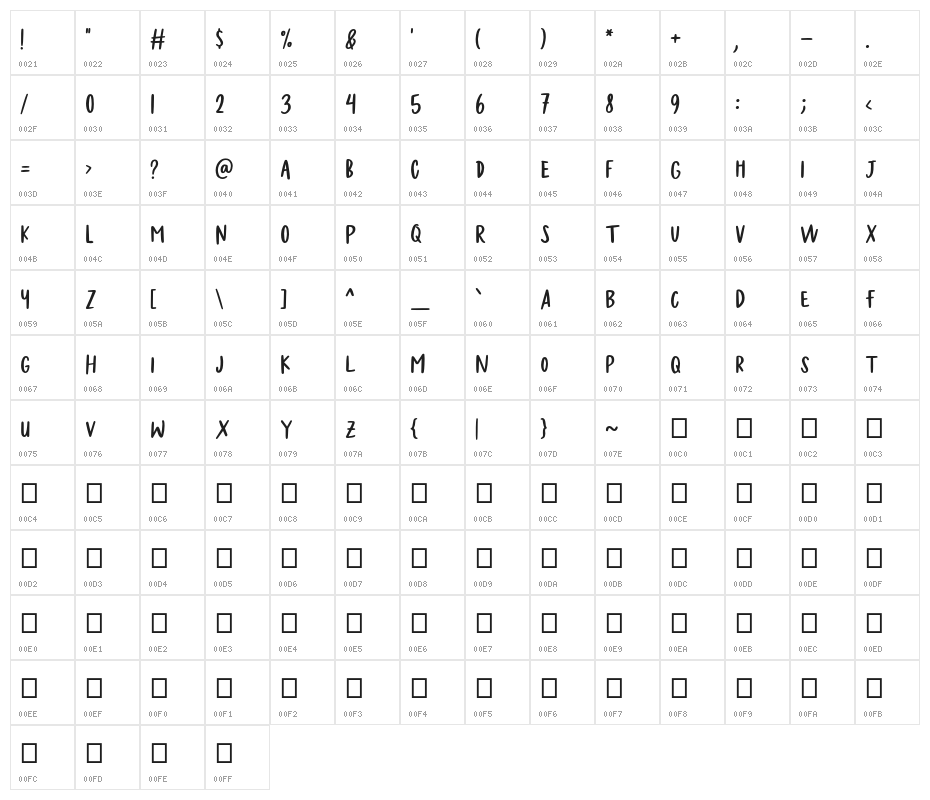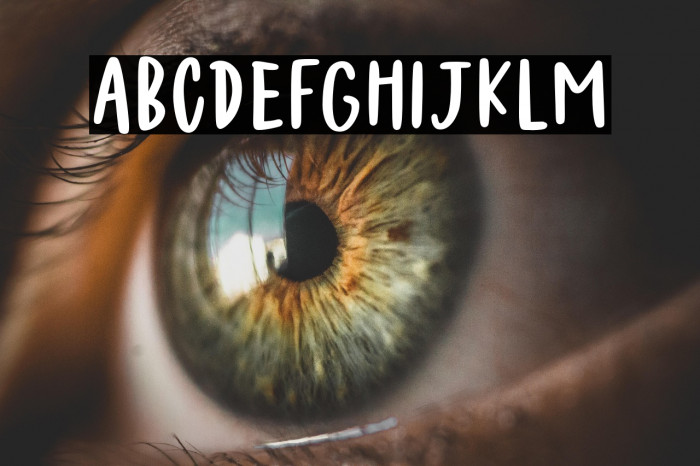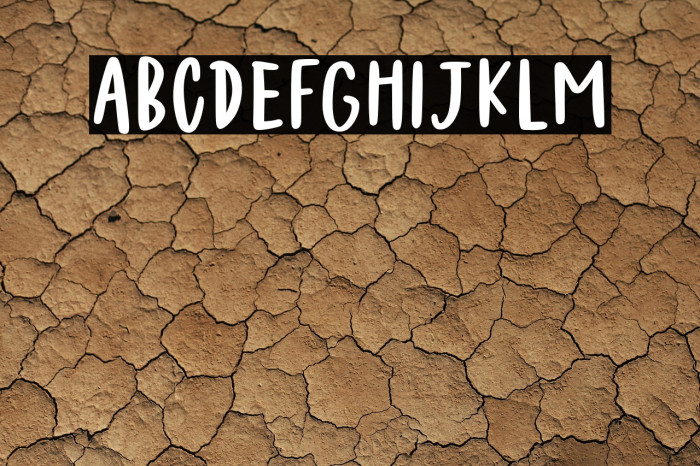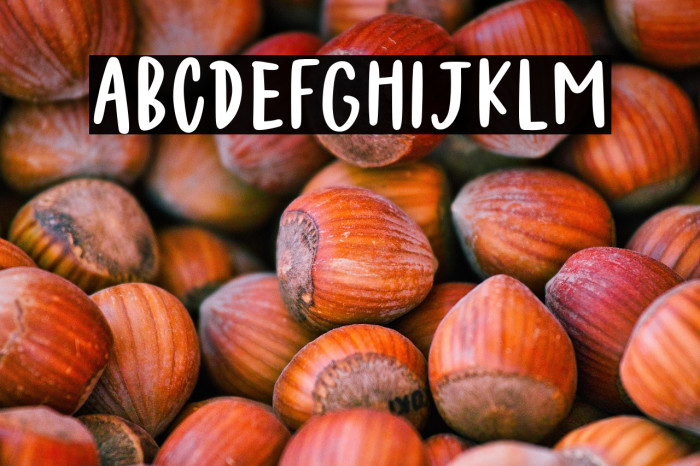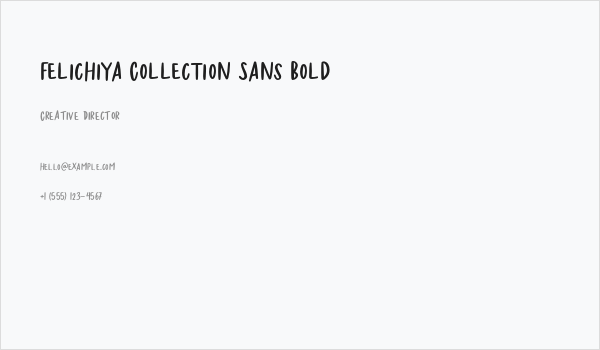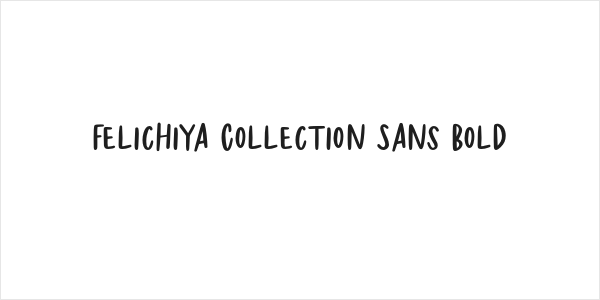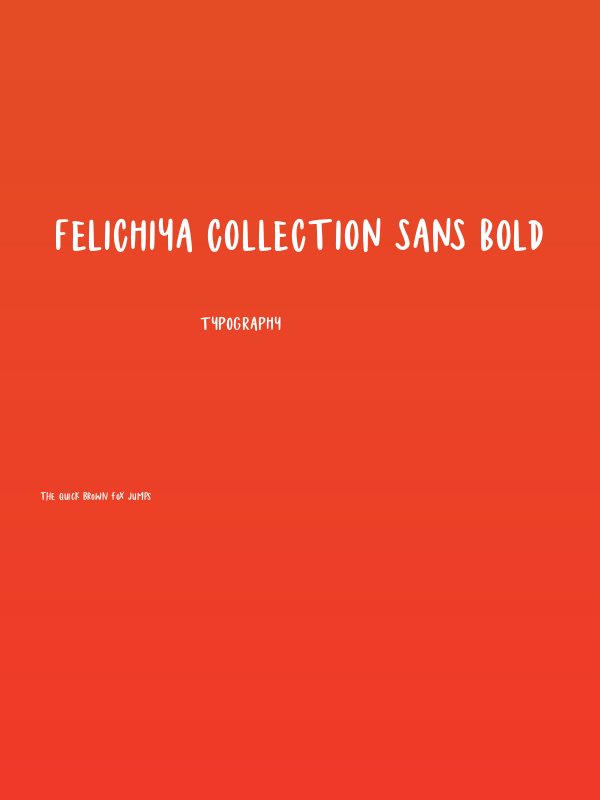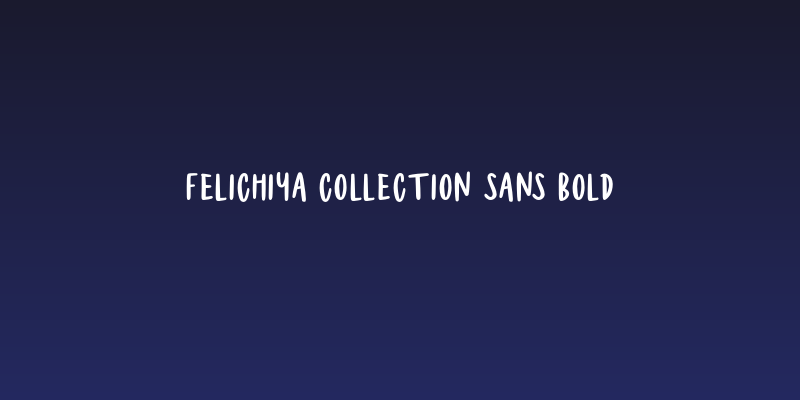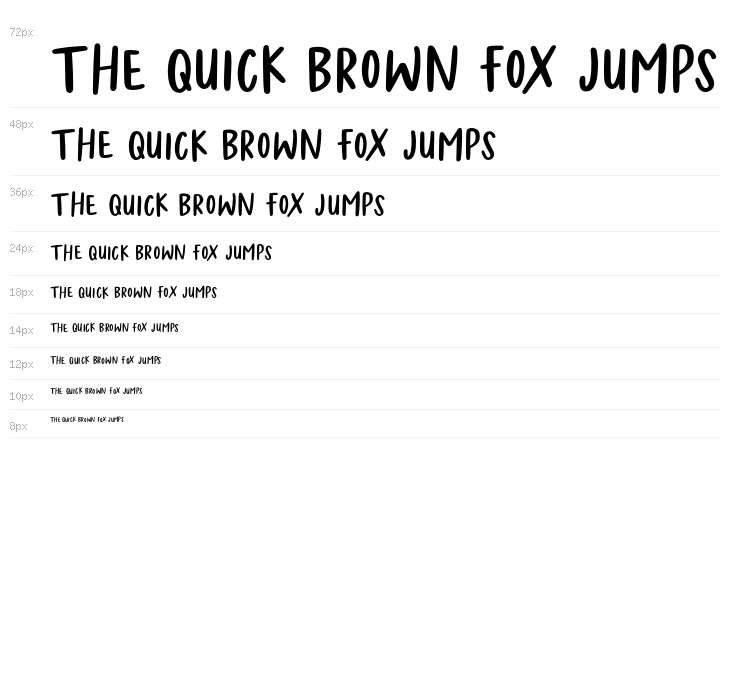
Felichiya Collection Sans Bold Font
Felichiya Collection Sans Bold Description
This font features a playful and casual style with a handwritten appearance. The letters are bold and rounded, giving a friendly and approachable feel. The strokes are consistent in width, providing a uniform look across all characters. The uppercase and lowercase letters maintain a similar height, contributing to a cohesive design. The numerals and special characters are designed to match the overall style, ensuring versatility in various applications. The font's informal nature makes it suitable for creative and fun projects.
| Use Case | Logos, Headlines, Informal Text |
| Proposed Projects | Ideal for greeting cards, children's books, playful branding, and social media graphics. |